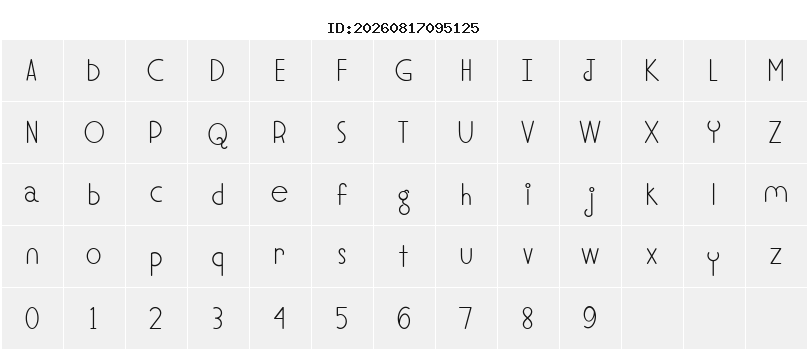
Soul Meets Body Preview
• Font Name: Soul Meets Body
• Full Font Name: Soul Meets Body
• Designer: Misti's Fonts (Misti Hammers)
• Manufacturer: Misti's Fonts (Misti Hammers)
About Soul Meets Body.ttf
Soul Meets Body.ttf is a modern, elegant sans-serif font designed for ultimate readability and visual harmony. Perfect for branding, headlines, web design, and print materials.